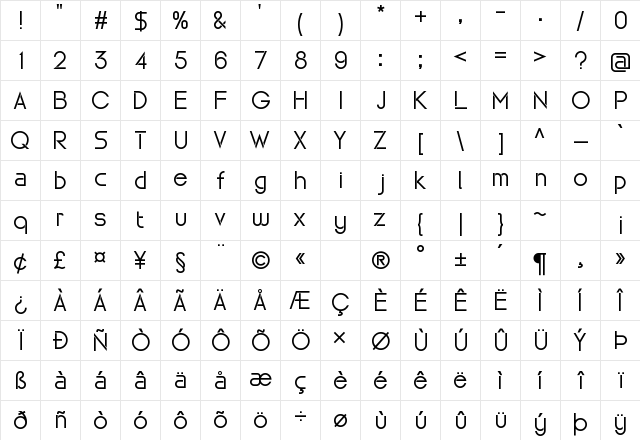
Maxellight Regular
| Foundry | SIGN Studio |
| Designer | Sugiyanto |
Design Context for Maxellight Typeface
Maxellight offers clean, dependable letterforms without strong stylistic allegiance, making it a practical choice for designers who need flexibility. Its slender proportions lend an understated elegance to any composition.